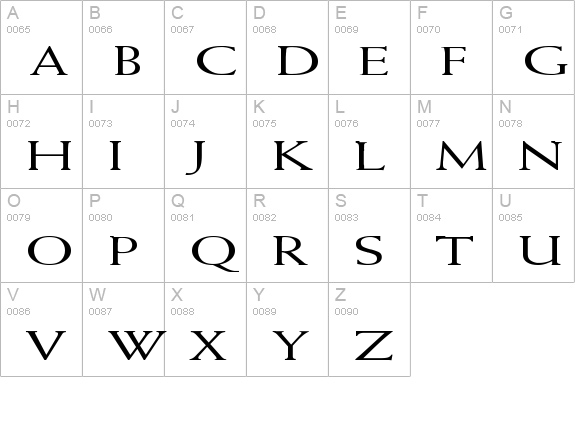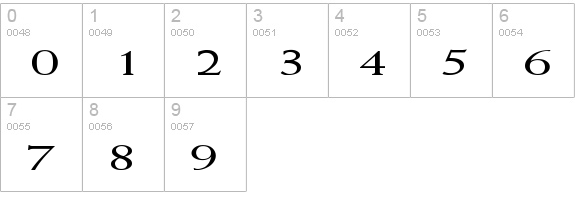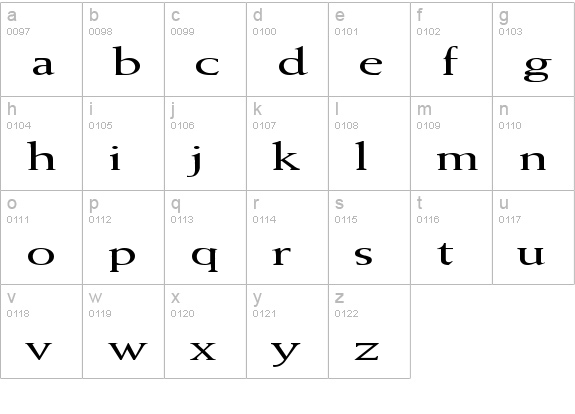
Weiss Ex Font Details
Weiss Ex is a stunningly elegant and versatile font that effortlessly combines classic beauty with a modern twist. Its clean lines and delicate details make it perfect for a wide range of design projects, from branding and packaging to editorial layouts and invitations. With its timeless appeal, Weiss Ex is a font that can be used for both formal and informal occasions. Whether you are creating a sophisticated logo for a high-end fashion brand or designing a stylish wedding invitation, this font will add a touch of refined elegance to any project. One of the best things about Weiss Ex is that it is completely free. Yes, you read that right! This incredible font is freely available to download at FontsMarket.com. Now you can enjoy the beauty and versatility of Weiss Ex without having to spend a penny. So why wait? Download Weiss Ex today and let its graceful curves and stylish letterforms elevate your designs to new heights. Whether you are a professional designer or a hobbyist, this font is sure to become one of your go-to choices. Don't miss out on this amazing opportunity to add a touch of sophistication to your creative endeavors. Download Weiss Ex now and unleash your creativity!